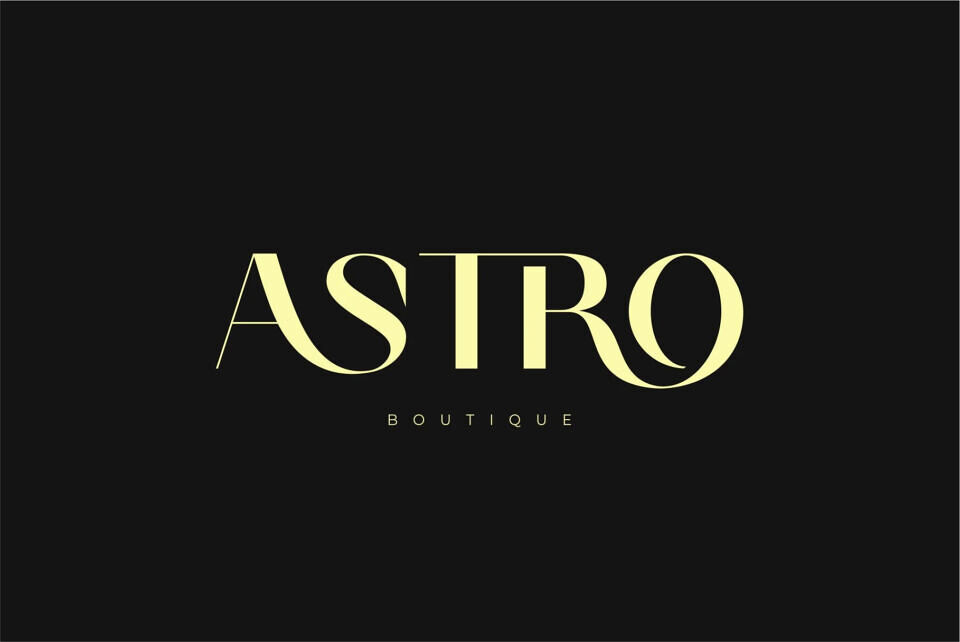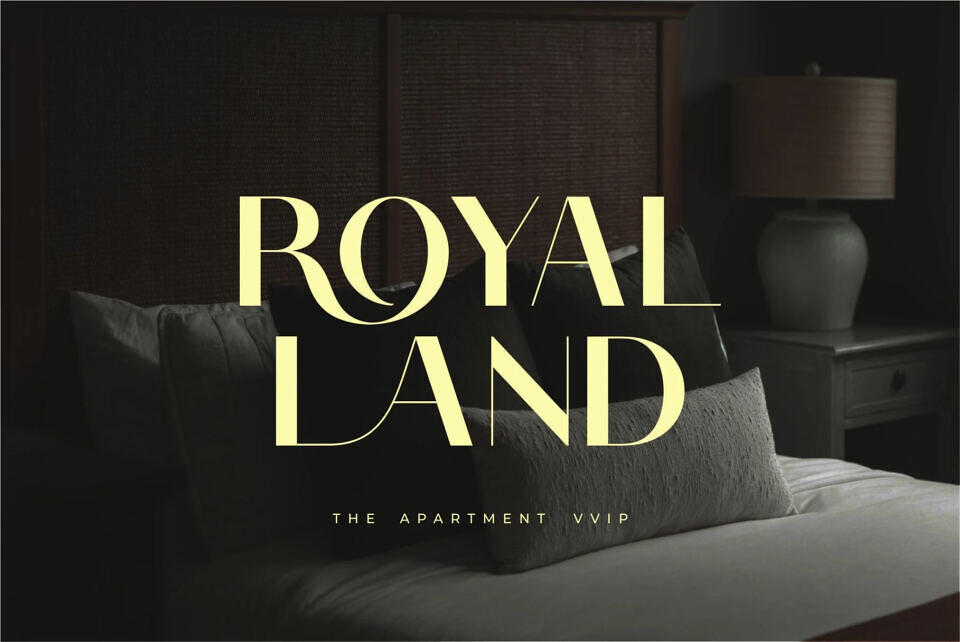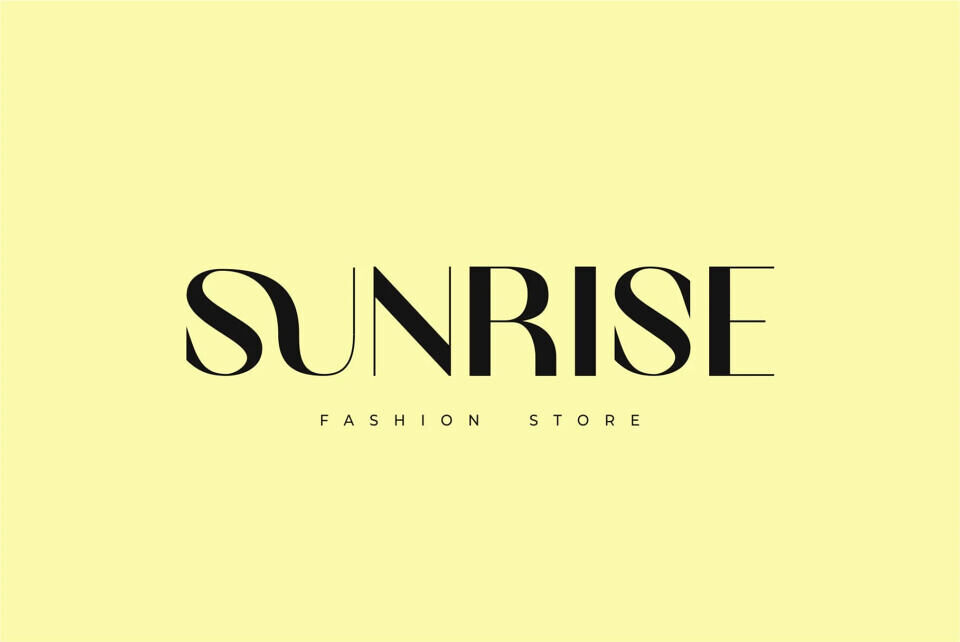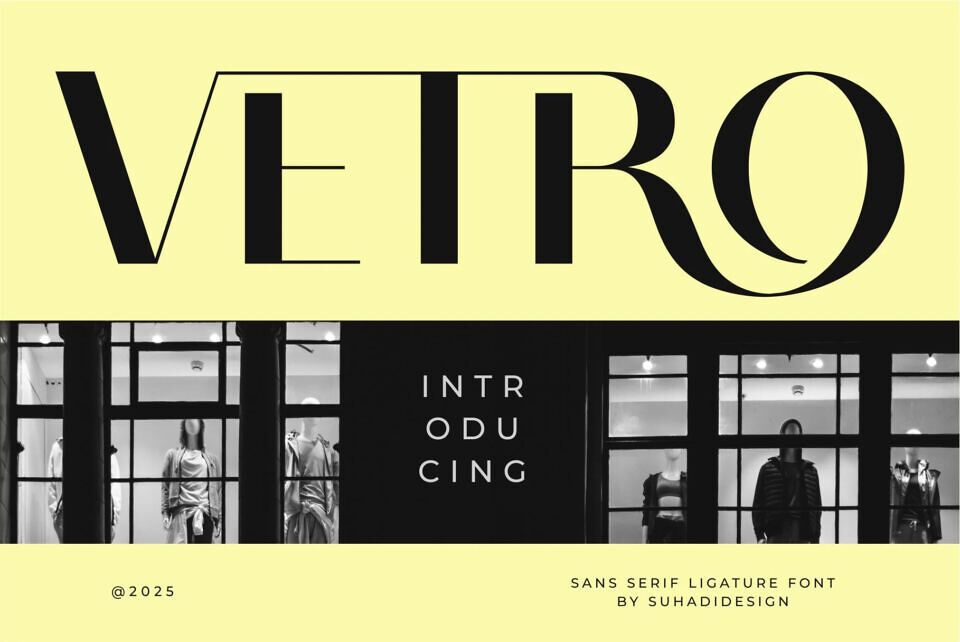
Vetro Font
Vetro is a modern and stylish sans serif font. With its modern design and ligature feature, this font has become a favorite on the market. We’ve kept this font looking elegant, classy, ​​and stylish.
Vetro is the perfect choice for cosmetics, beauty, brands, logos, trademarks, magazines, designs, books, publications, branding, brand names, business cards, social media, classy designs, newspapers, branding, beauty, and other projects.